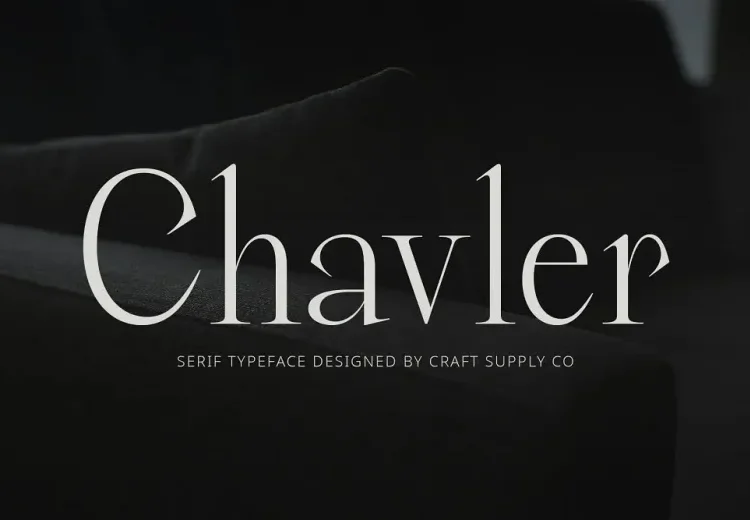
Chavler Font
Chavler is an elegant serif font that embodies sophistication and professionalism. With its clean design, characterized by neat, straight edges and standard dimensions, Chavler is well-suited for formal applications where clarity and style are paramount. Its simple yet refined appearance makes it versatile for a wide range of uses, from branding and magazines to books, posters, and websites.
The font’s classic serif style lends a sophisticated touch to any project, making it ideal for creating a polished image for a company, publishing high-quality magazines, or designing elegant invitations for special events. Chavler’s professional and clean look ensures that your designs maintain a high standard of quality and effectiveness.
Whether you’re working on corporate materials, publishing content, or crafting invitations, Chavler provides a timeless and classy aesthetic that enhances the overall presentation of your projects. Its versatility and refined style make it a valuable addition to any designer’s toolkit.